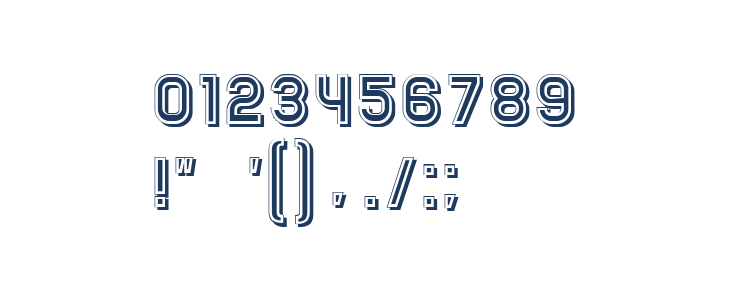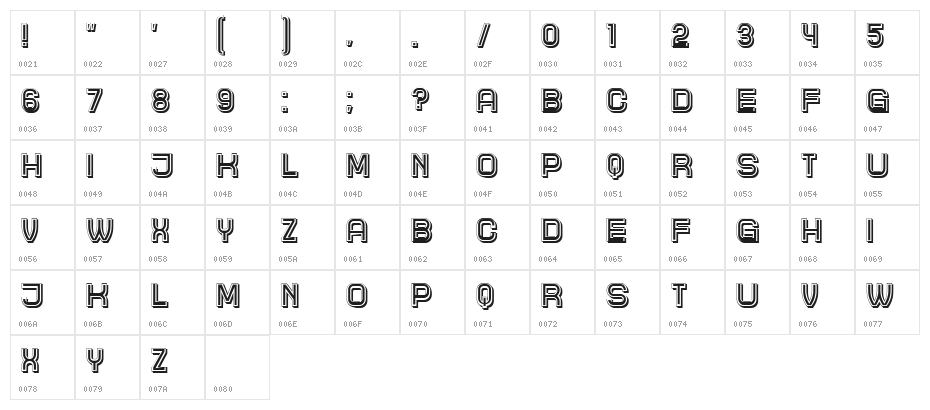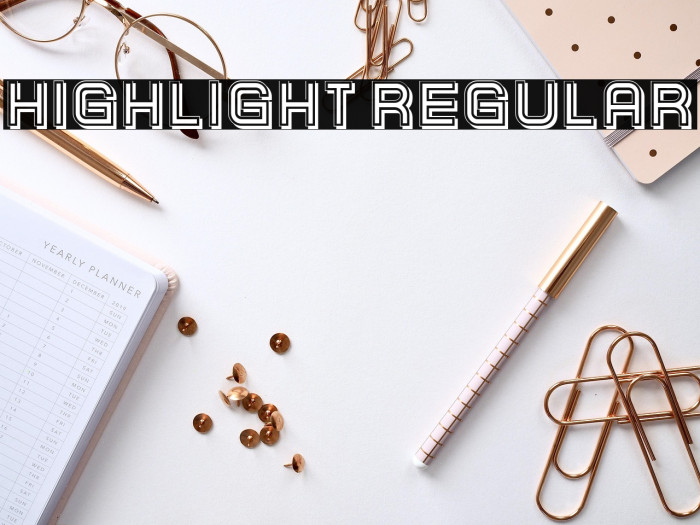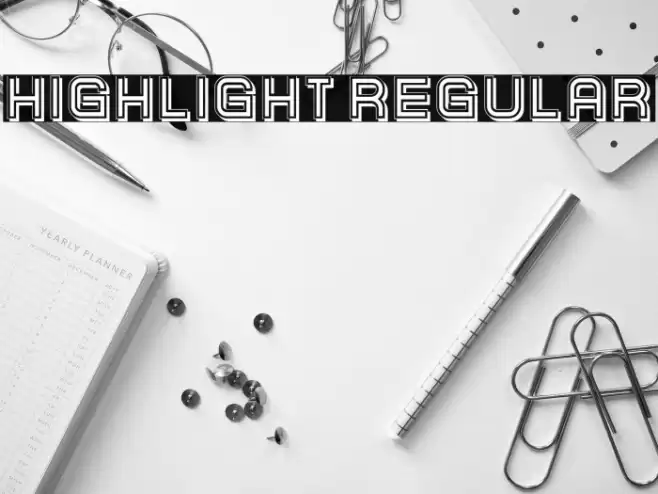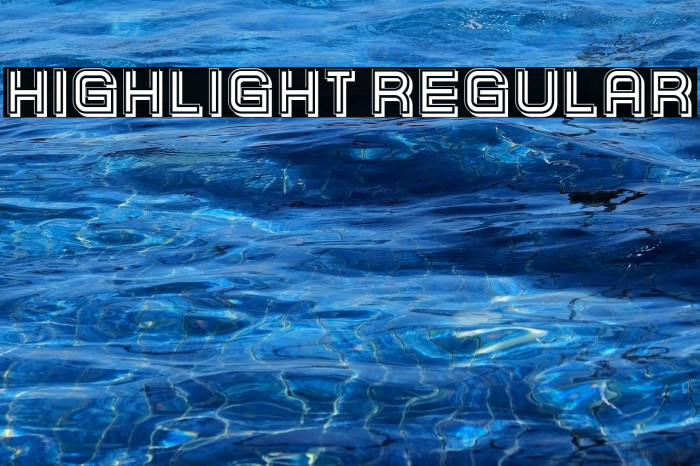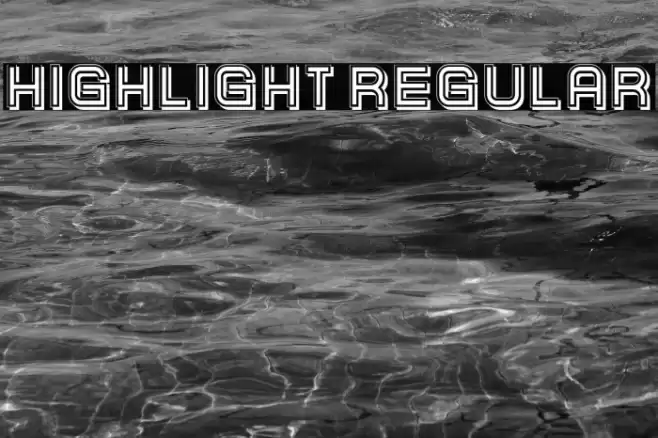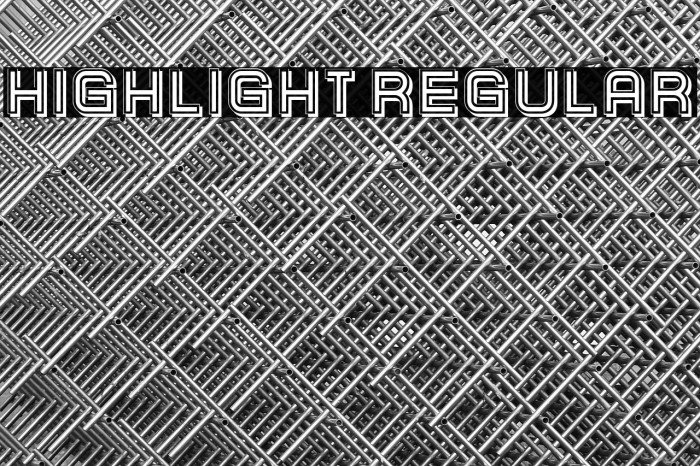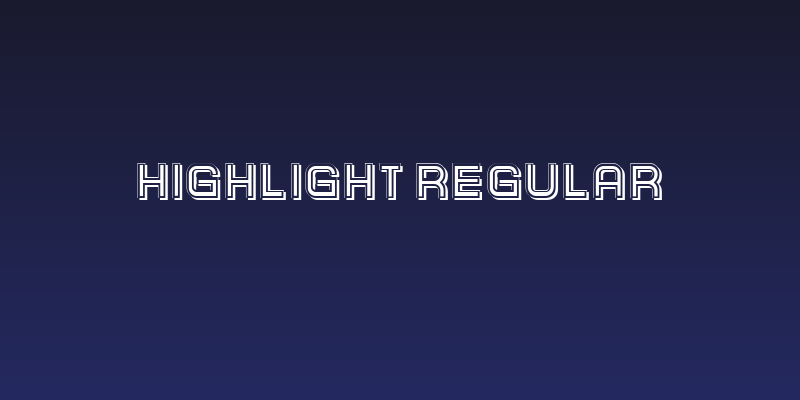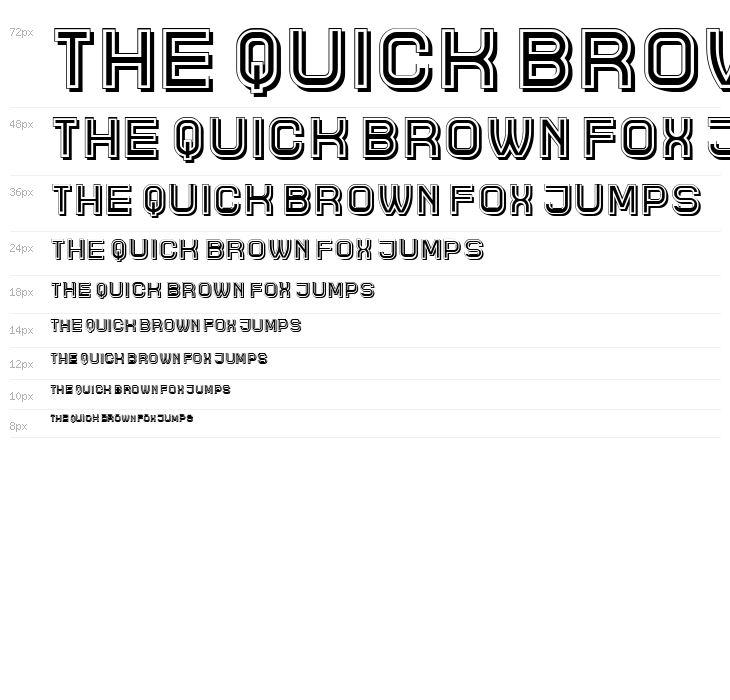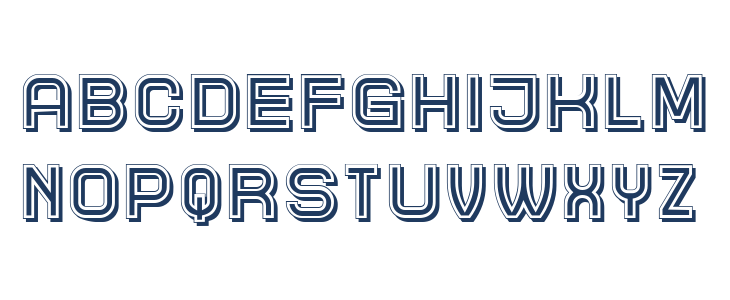
Highlight Regular Font
Highlight Regular Description
This font features a bold, geometric design with a distinct three-dimensional effect created by its layered outline. The uppercase letters are uniform in height, with clean, straight lines and sharp angles that give it a modern and industrial feel. The numbers and special characters maintain the same structural integrity, ensuring consistency across all characters. The font's unique style makes it stand out, offering a sense of depth and dimension that is visually striking.
| Proposed Projects | Ideal for branding projects, poster designs, and any creative work that requires a modern, eye-catching typeface. |